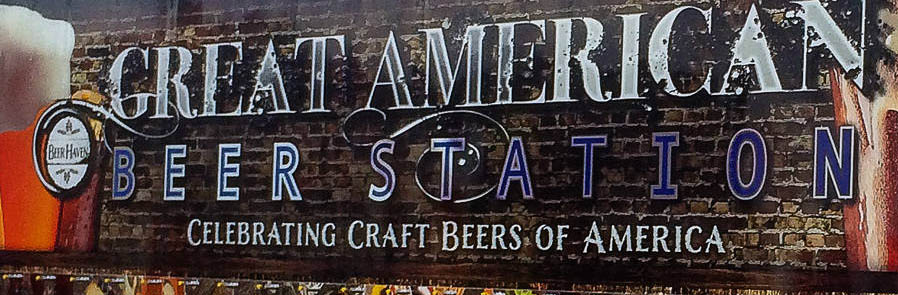
Font help please?
Can any of you font guru's tell me what this "Great American" font is? I realize it's the bastard child of Times roman and bleeding cowboy but I need a name. Thanks in advance!!!